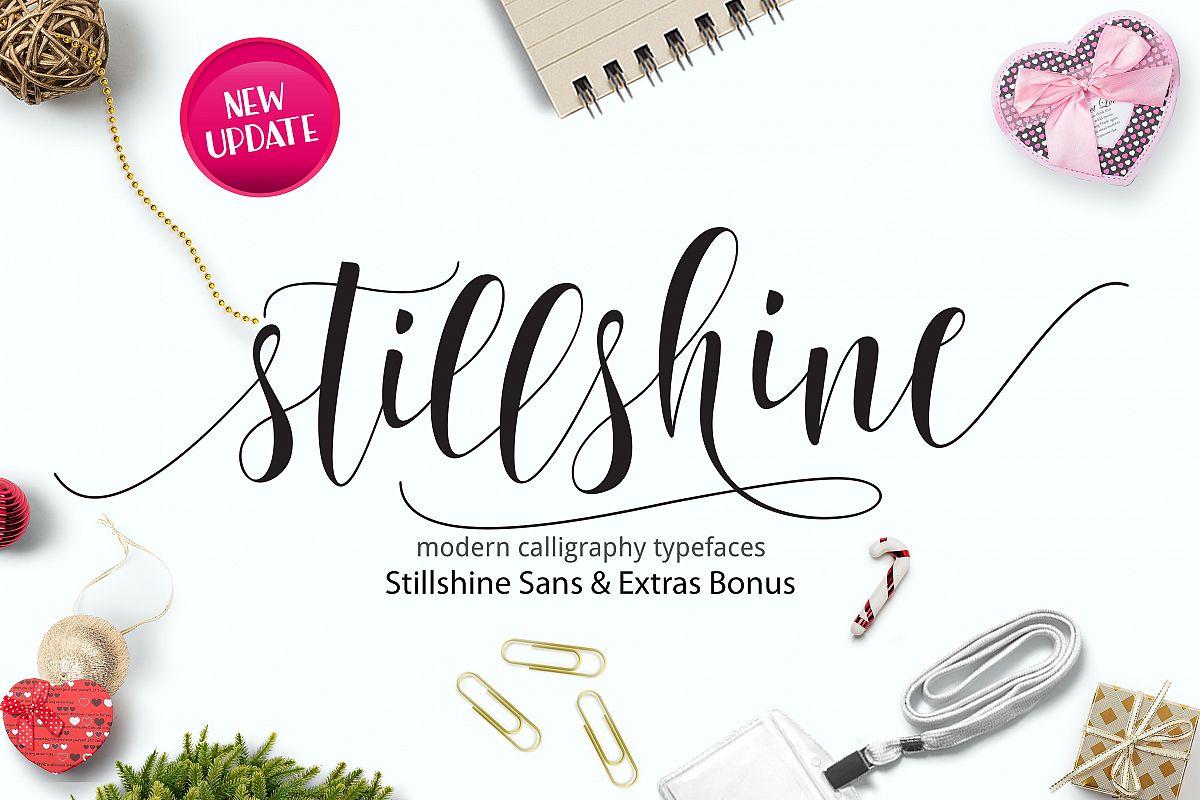
Still Shine script
NEW UPDATES MORE THAN 160 CHARACTER ALTERNATES from the 500 glyph become 670 glyph overallStill Shine is a hand calligraphy, smooth, modern and clasik, calligraphy wavy, which was created to meet the needs of your next design project. Still Shine, Can used for various purposes. such as the title, signature, logo, correspondence, wedding invitations, letterhead, signage, labels, newsletters, posters, badges, etc.Still Shine Script It contains a full set of lowercase & uppercase, a large range of punctuation, numerals, and multilingual support. The font also contains several ligatures, Discretionary Ligatures, stylistic alternates, Swash, and Stylistic Set, for you who have opentype capable software (e.g. Photoshop/Illustrator, Corel Draw).Still Shine Script allows you to create custom dynamic text. you can access by turning on; Ligatures, Discretionary Ligatures, Stylistic Alternates, Swash, Stylistic Set, Initial as well as ligatures in Photoshop, Adobe Illustrator, Adobe InDesign or through a panel of glyphs such as Adobe Illustrator, Photoshop CC, Let's switch from the reguler character into character alternative to get the text with the layout of your dreams.Still Shine features 670 glyphs and has given PUA unicode (specially coded fonts), with tons of alternate characters. The pack can be accessed in full by any crafter or designer, without the requirement for extra design software, COMPATIBLE WITH SILHOUETTE & CRICUT DESIGN SPACEalso supports in pragram, Adobe Illustrator, Adobe Photoshop, Adobe InDesign, Corel Draw X version, Microsoft Word, Language Support : Albanian, Basque, Breton, Chamorro, Danish, Dutch, English, Faroese, Finnish, French, Frisian, Galician, German, Icelandic, Italian, Malagasy, Norwegian, Portuguese, SwedishThe Features of this fonts is: Contextual Alternates, Standart ligatures, Stylistic Alternates, Stylistic Sets, nitialFiles included: